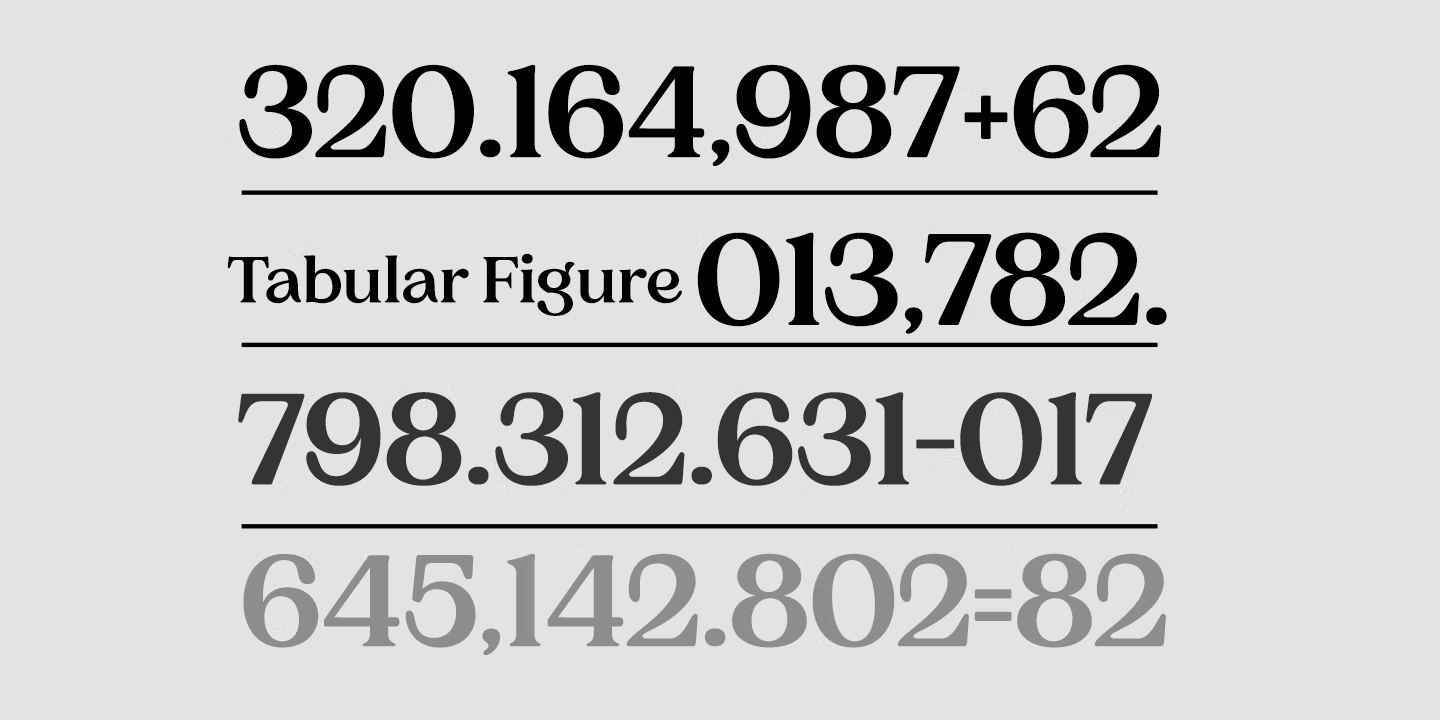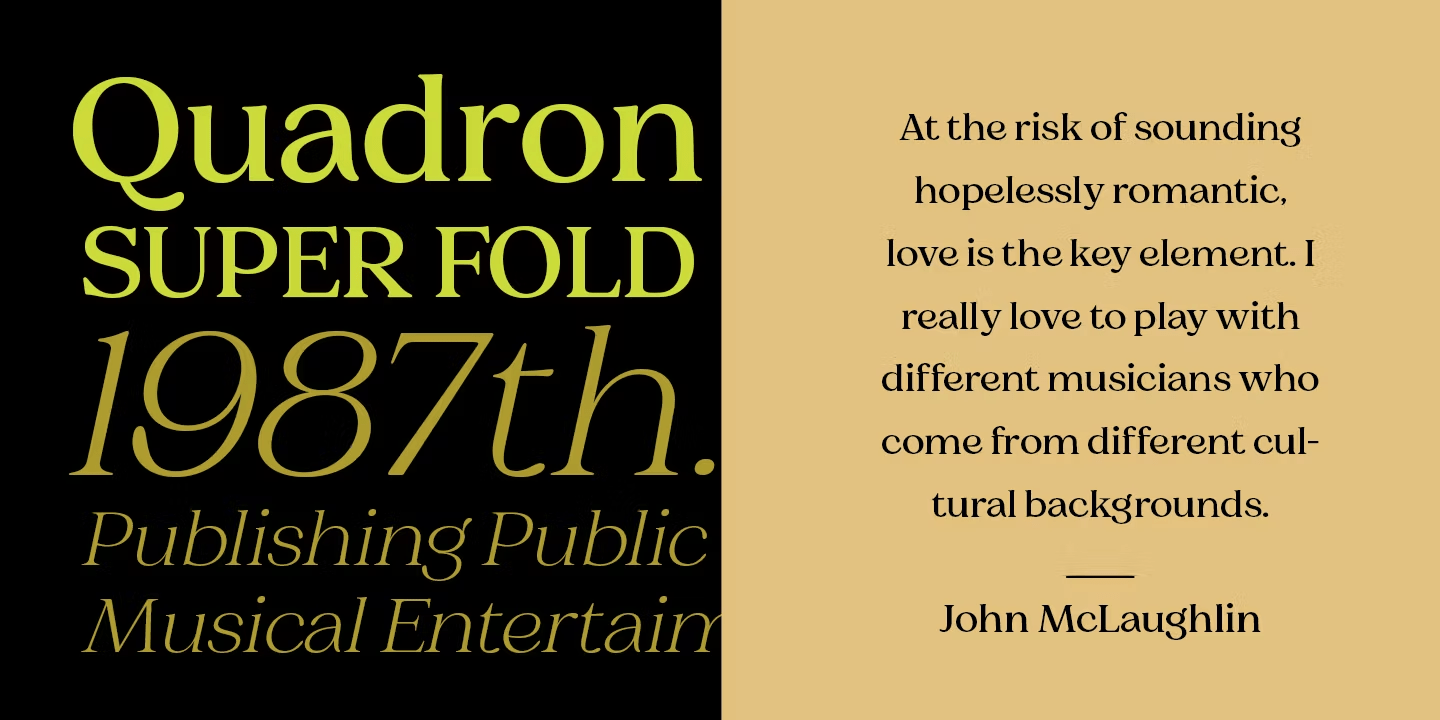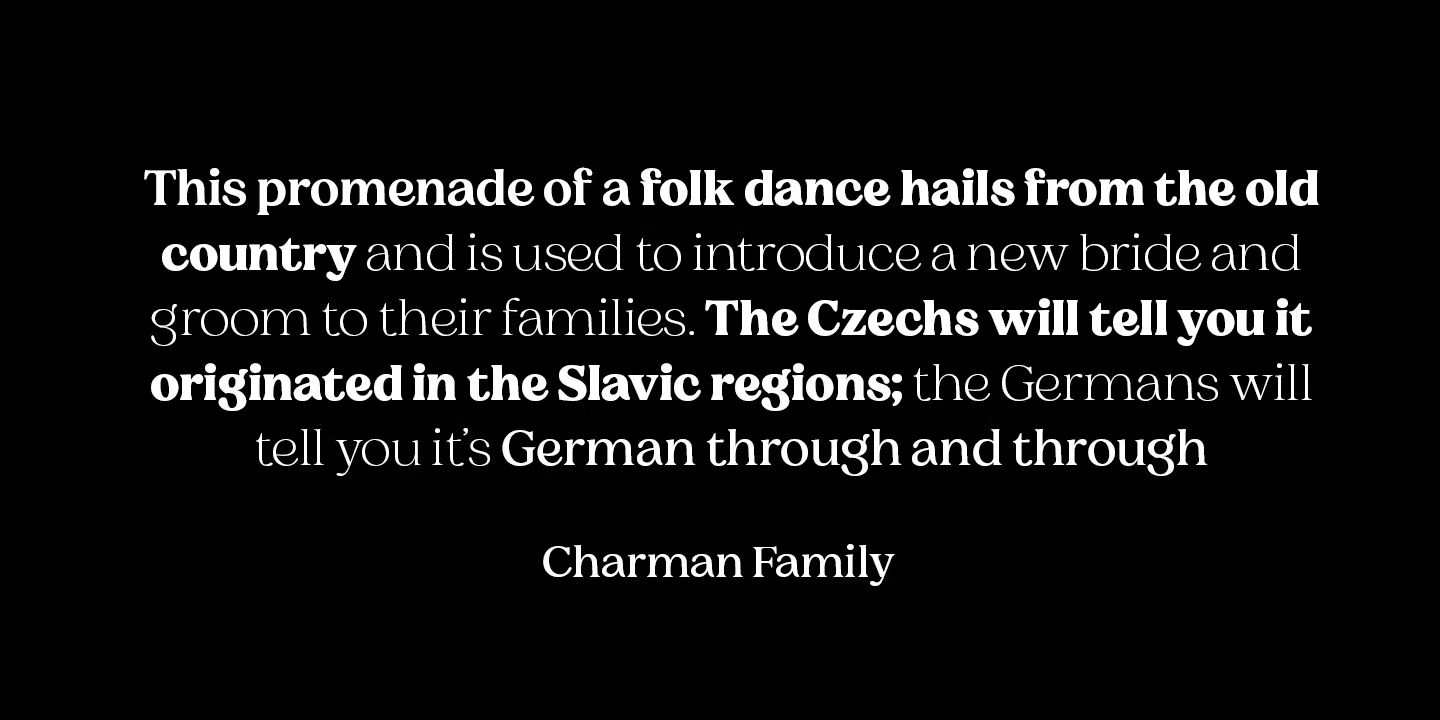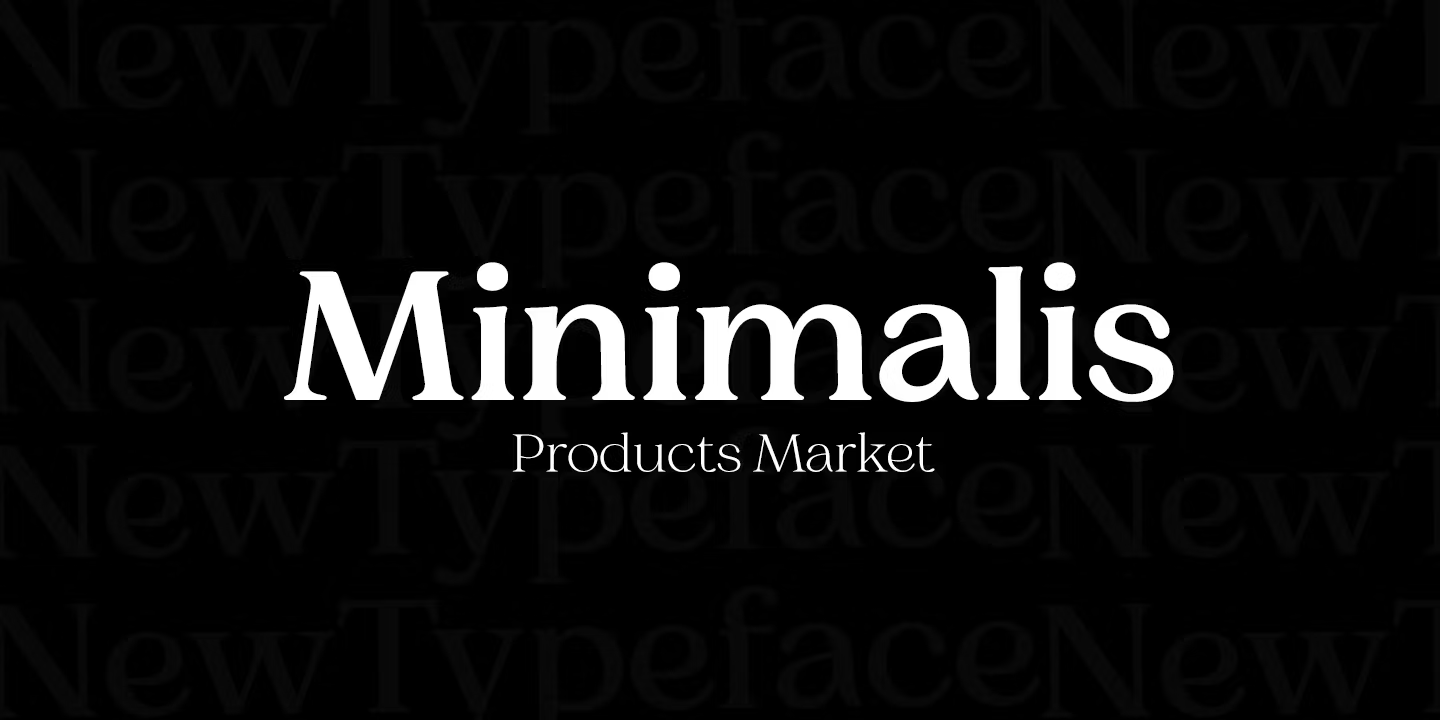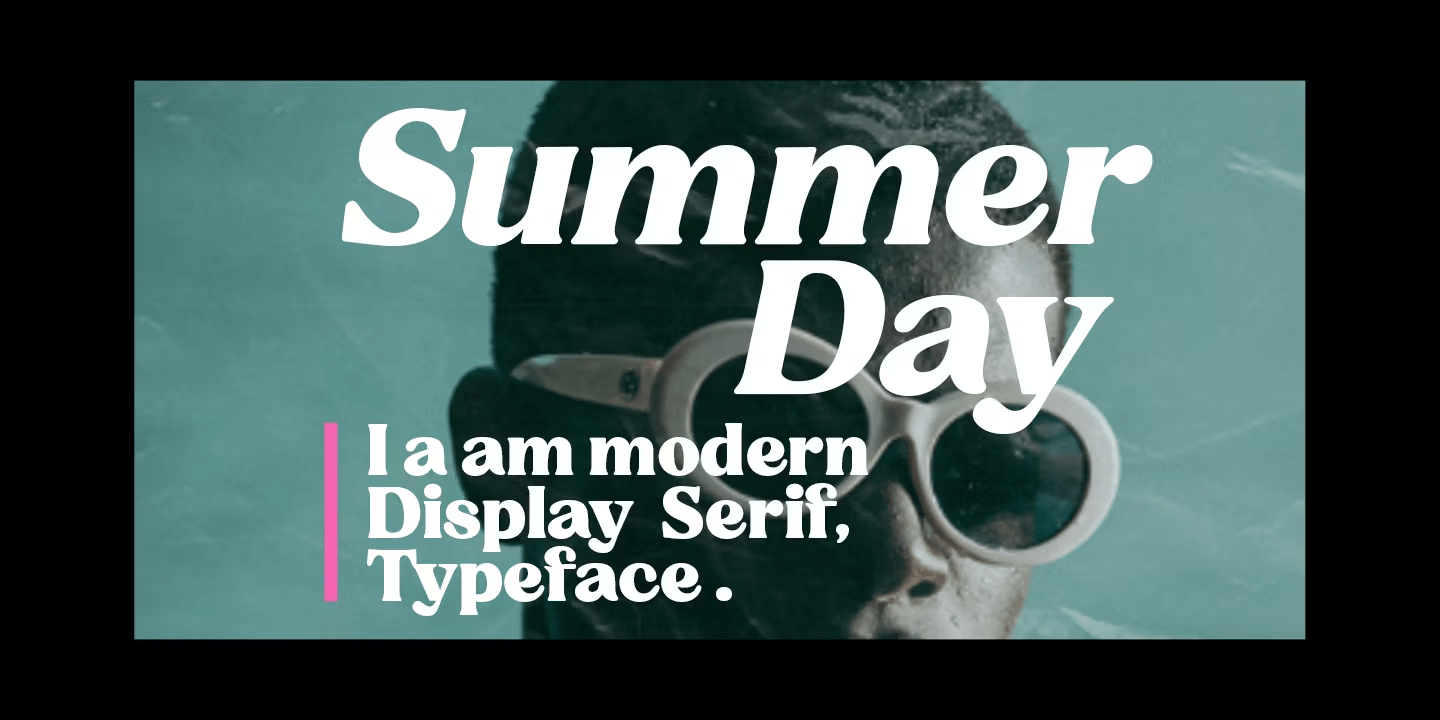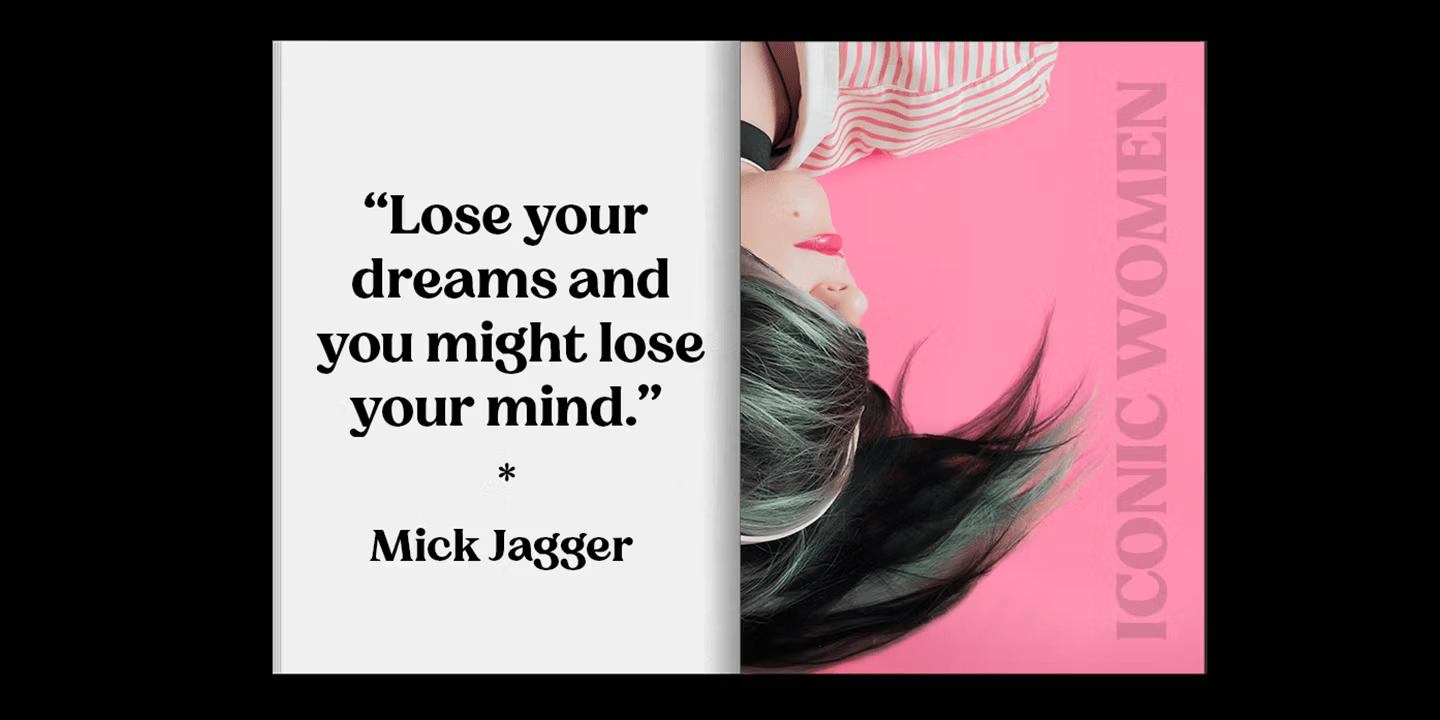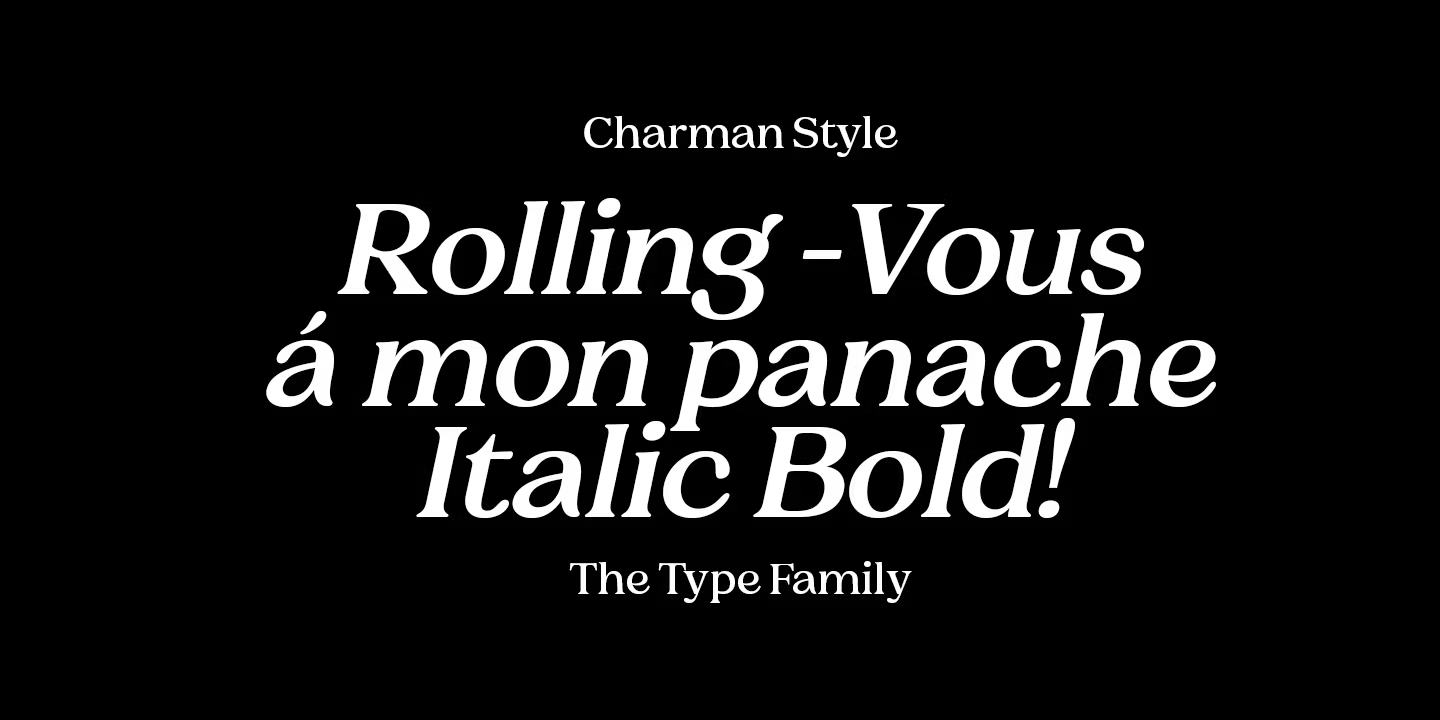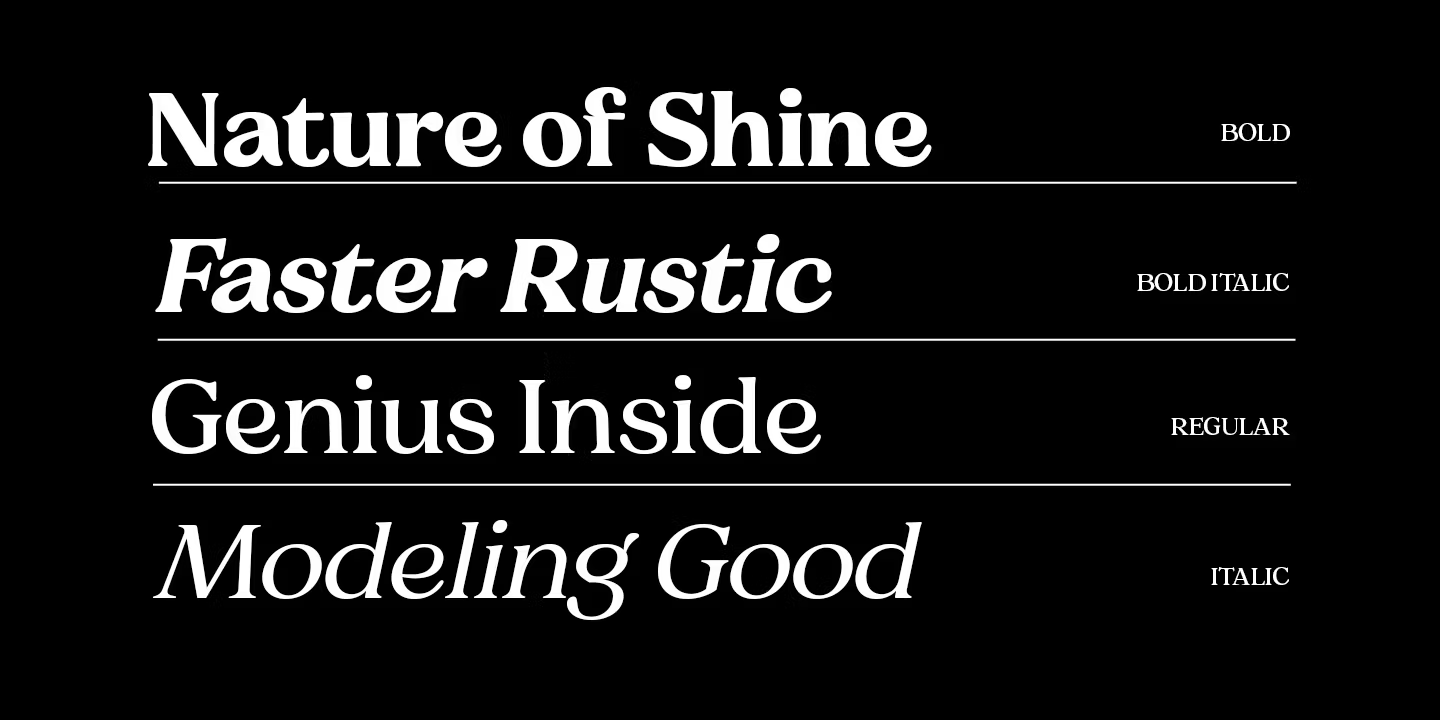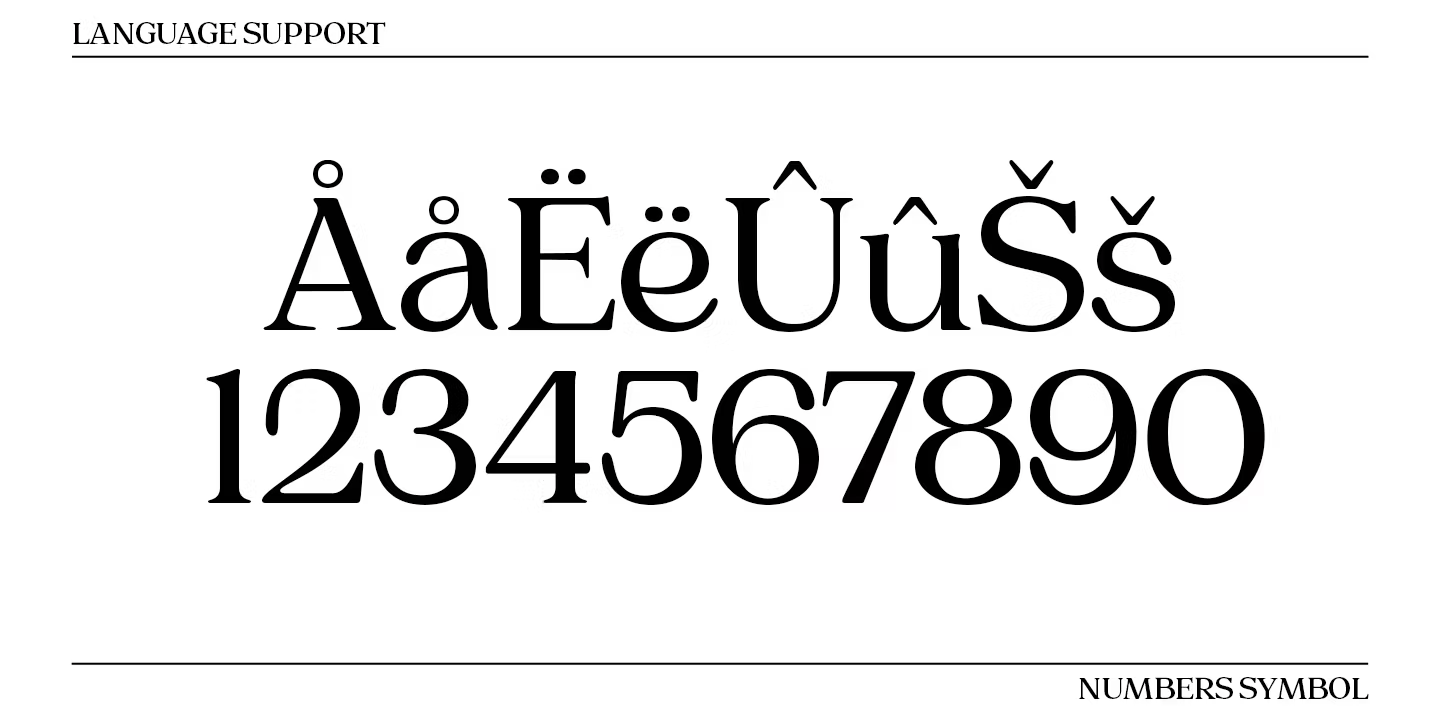
Charman Serif
The Charman Serif Font Family Pack is an Elegant serif font that comes in 20 different weights.
Designed to reflect nature, creating a sense of softness and natural expression.
The concept is pushed in a usability-focused direction, to serve as both a bold tool and a classy communicator.
The Charman Serif character set combines many of the features of open type - additional symbols,
both standard and optional, as well as punctuation in case and lower case - resulting in a stable workhorse set ready to handle projects of any size.